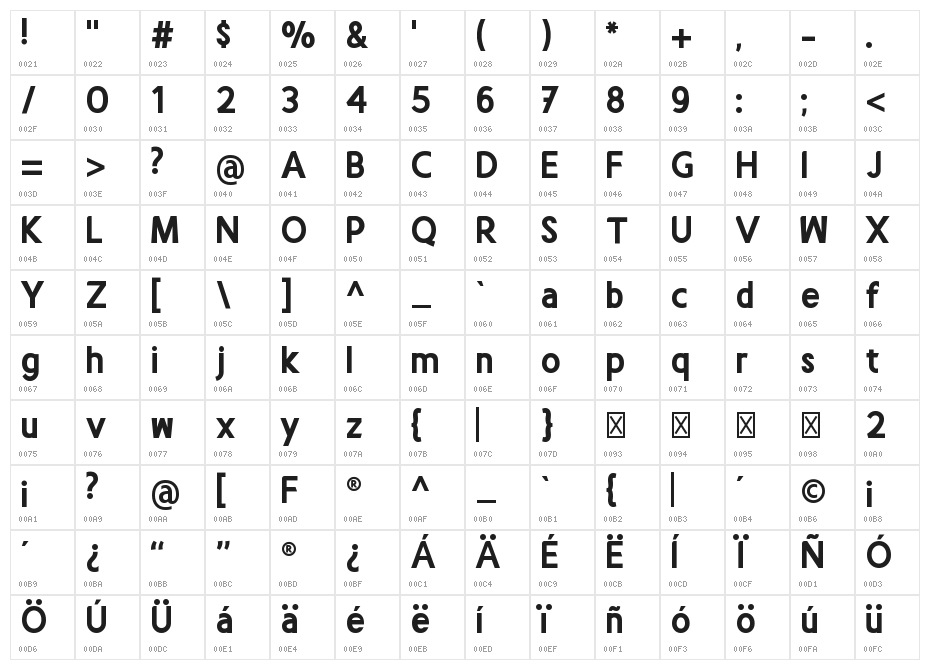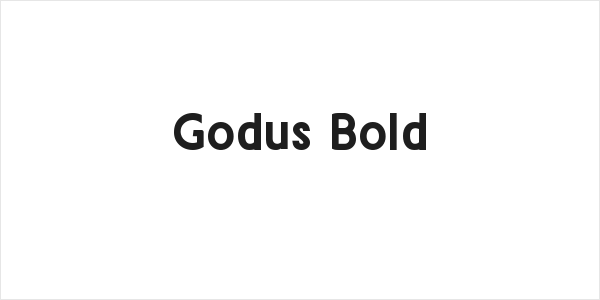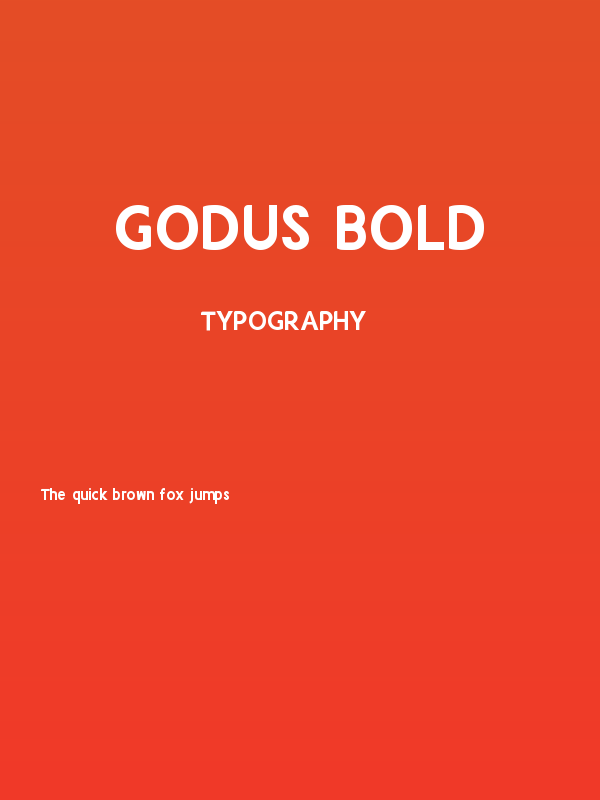
Godus Bold Font
Godus Bold Description
This font is a bold, sans-serif typeface characterized by its strong and clean lines, making it highly legible and impactful. The uppercase and lowercase letters are well-proportioned, with a consistent stroke width that conveys a sense of stability and modernity. The numerals are clear and straightforward, enhancing readability. Special characters are designed with the same boldness, ensuring they stand out effectively. This font is versatile, suitable for both digital and print media, and can be used to create a strong visual presence.
| Proposed Projects | Ideal for branding, headlines, posters, and digital content where a strong, modern look is desired. |